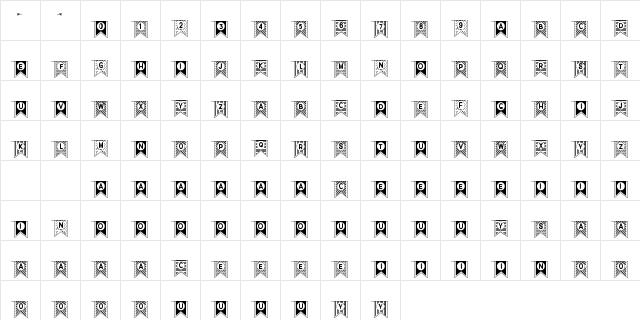
Cufis Decor Regular
| Foundry | Kotak Kuning Studio |
| Designer | Kotak Kuning Studio |
Design Context for Cufis Decor Typeface
Cufis Decor is a composed and adaptable typeface that performs quietly and consistently across a wide range of design contexts.
Pro Tip: Pair Cufis Decor with a font of contrasting weight or personality to build a more expressive typographic hierarchy.